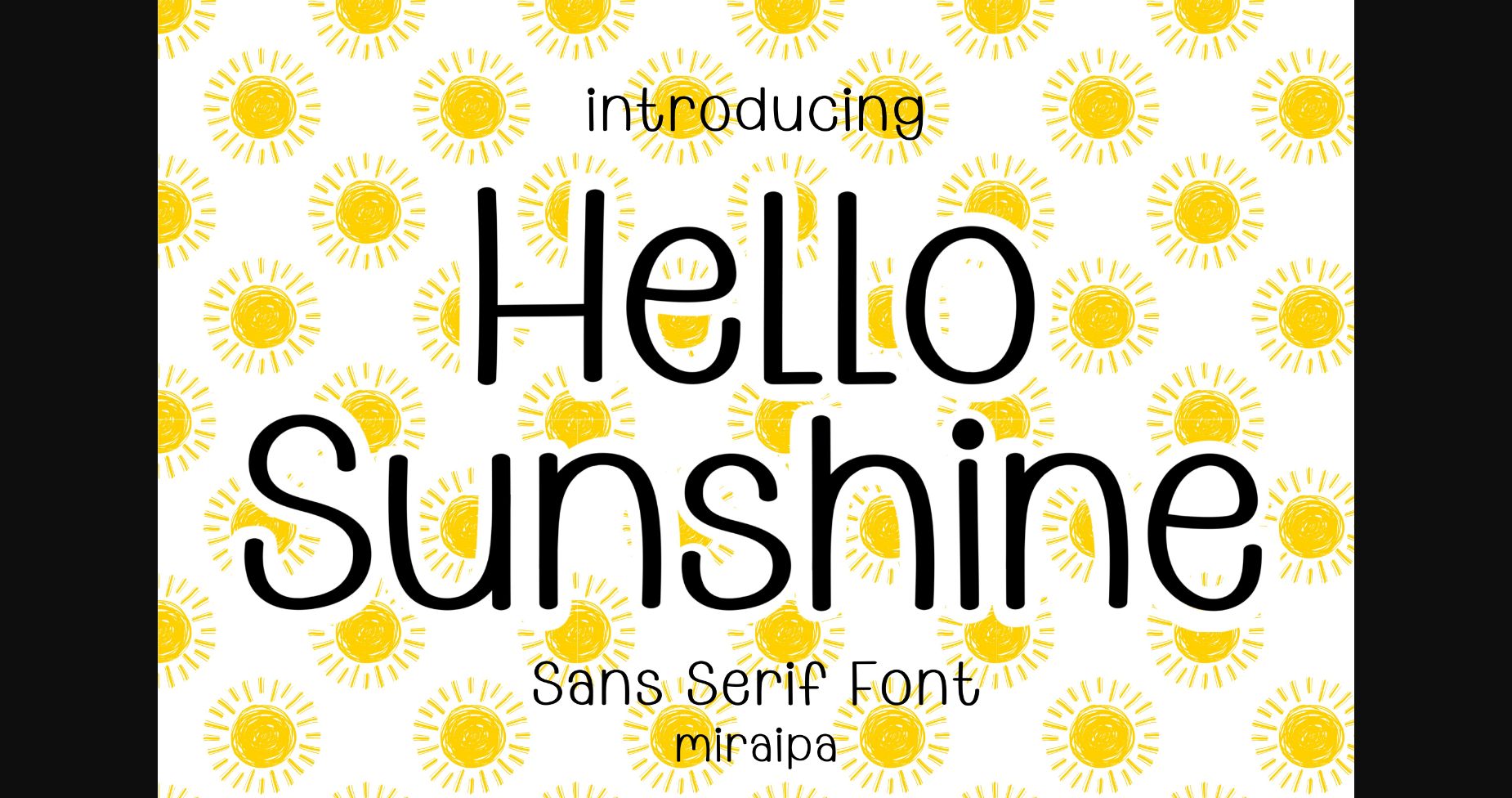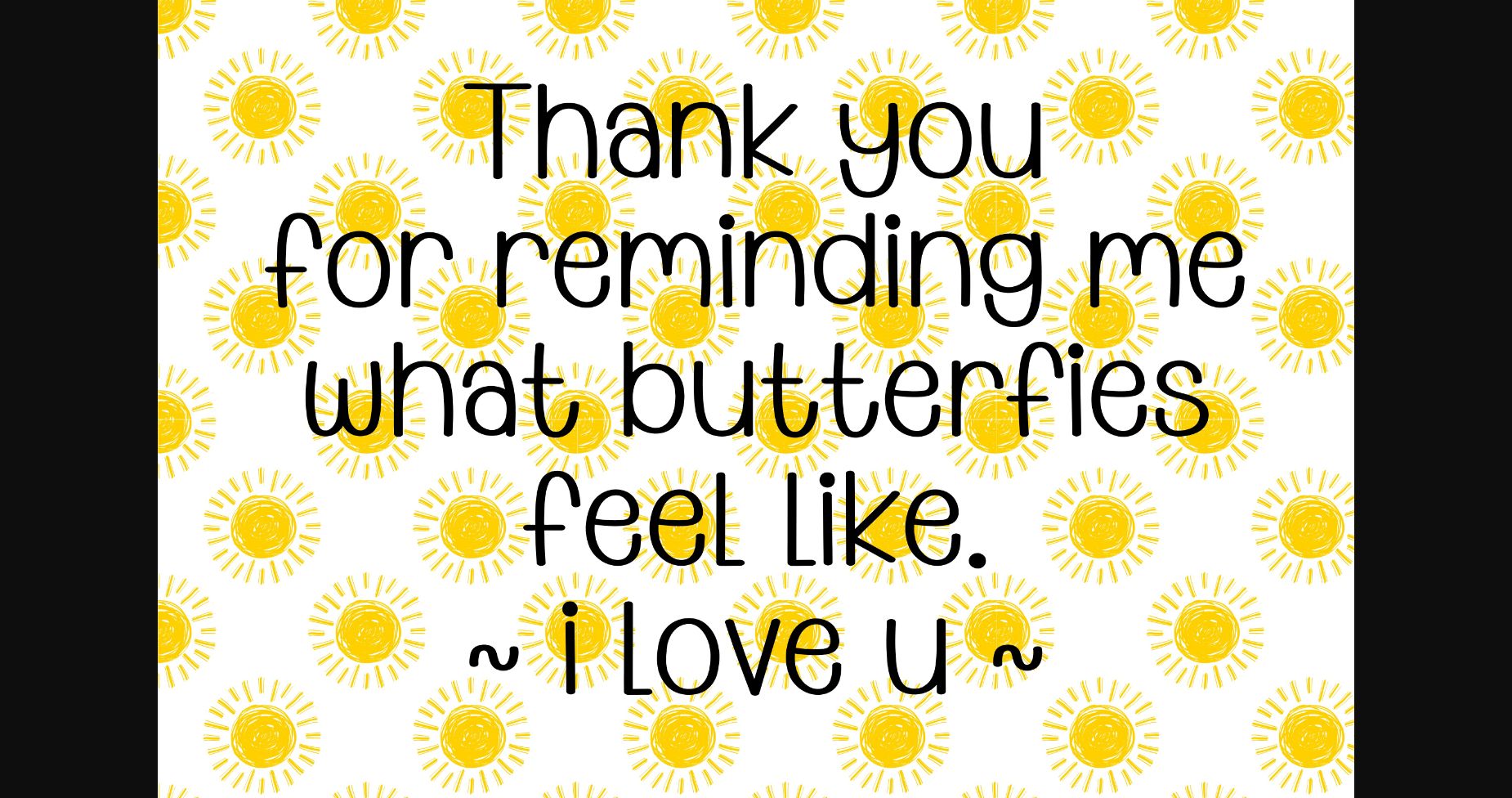
About Hello Sunshine Font
Hello Sunshine is an exquisite and modern sans-serif font that is perfect for creating eye-catching designs. Its clean lines and subtle curves make it ideal for any type of project. It is highly legible and versatile, making it a great choice for logos, branding, titles, and more